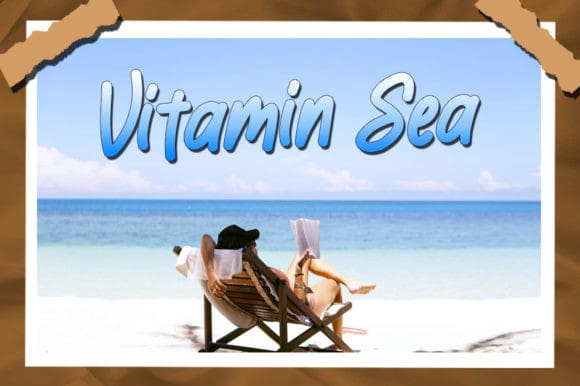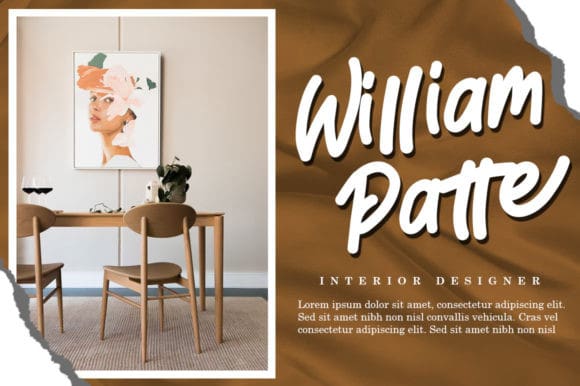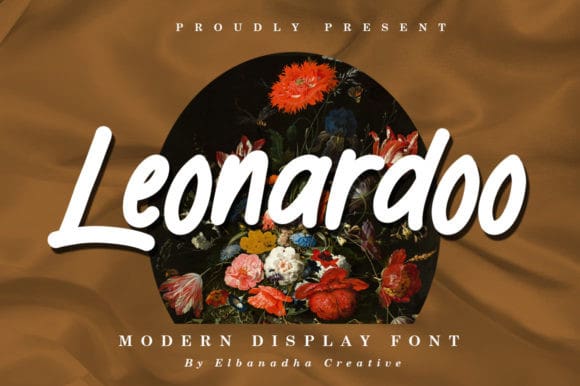
Leonardoo Font
Leonardoo Font is a simple, modern, quirky, and adaptable handwritten font. You can successfully add this casual font on wedding invitations, business cards, greetings cards, social media posts, wall art, and more. This font is PUA encoded which means you can access all of the glyphs and swashes with ease!